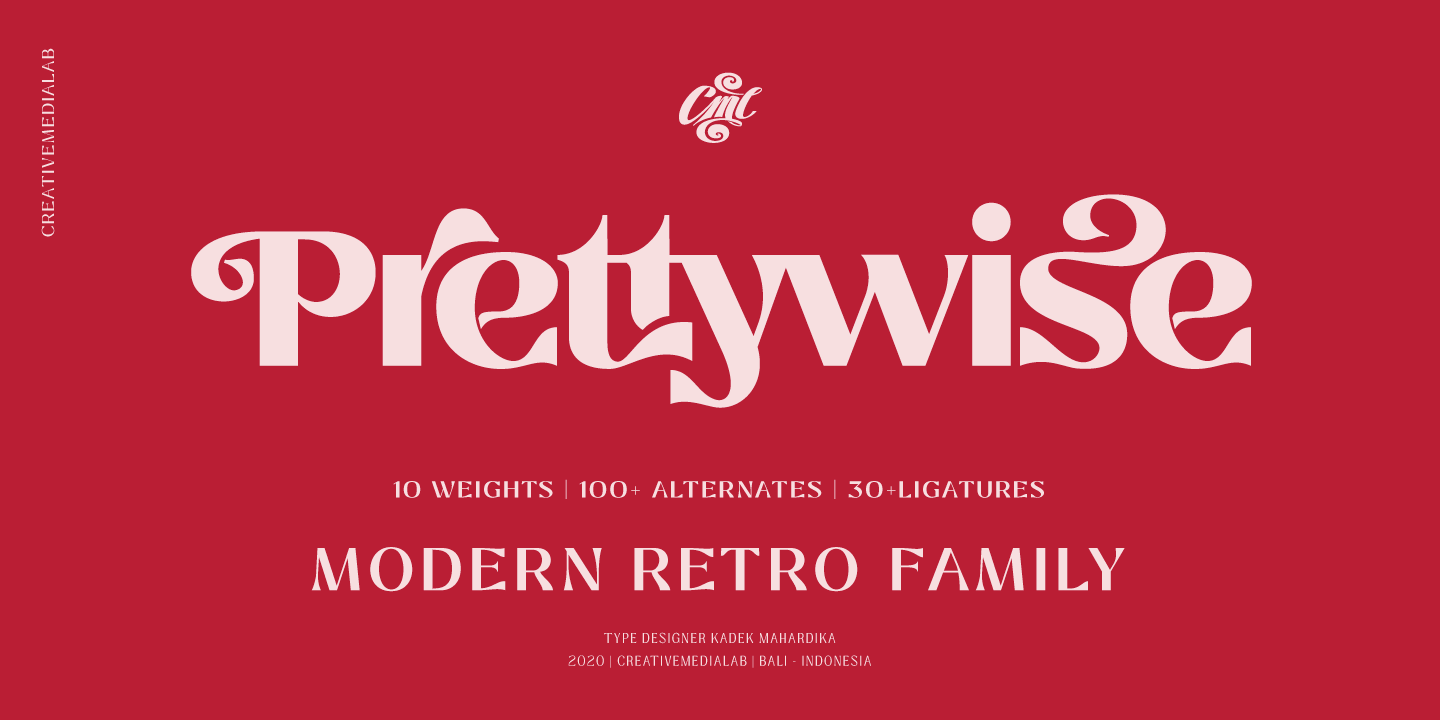
This intelligent typeface is perfect for educational institutions, academic publications, wisdom-focused brands, consulting firms, libraries, bookstores, coaching services, mindfulness apps, personal development platforms, professional seminars, thought leadership content, intellectual property firms, and knowledge-sharing communities. The font's thoughtful design makes it ideal for projects that combine aesthetic beauty with intellectual depth and meaningful insight.
Prettywise Font is exciting because it perfectly balances visual appeal with intellectual sophistication through its harmonious letterforms and carefully considered character structure. The font's elegant curves and wise proportions create an atmosphere of beauty, intelligence, and thoughtful communication, making it perfect for brands that want to convey both aesthetic sensibility and intellectual credibility. Its balanced personality ensures instant trust while maintaining excellent readability across educational applications.
The Prettywise Font family includes multiple thoughtful variations: Light Insight, Regular Wisdom, Medium Knowledge, Bold Intelligence, and Black Genius weights, each available in standard and italic versions. Special academic editions feature scholarly alternates, educational symbols, and thoughtful ligatures that enhance the font's intellectual appeal, providing designers with comprehensive tools for creating authentic knowledge-focused communications.
Combine beauty with intelligence using Prettywise Font Free Download – a typeface that represents the perfect fusion of aesthetic appeal and intellectual depth. Whether you're developing educational branding, academic materials, or wisdom-based marketing campaigns, this font delivers the thoughtful elegance and intelligent sophistication your projects need while ensuring exceptional performance and inspiring impact across all educational and intellectual applications.